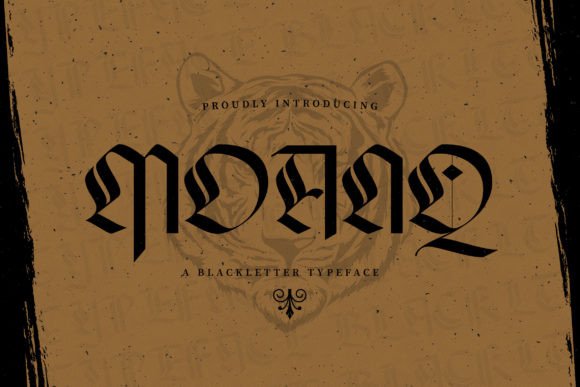
Moanq: Bold Blackletter for Impactful Design
Moanq is a striking blackletter typeface that brings a sense of history and drama to any design. Its strong, intricate letterforms make it ideal for creating visuals that stand out in the digital space. Whether you're designing social media graphics, campaign banners, or brand assets, Moanq adds a unique visual identity that captures attention.
As a marketing professional, you know how important it is to create content that resonates with your audience. Moanq helps you achieve that by offering a bold, distinctive look that conveys confidence and style. Its dark, textured strokes evoke a sense of mystery and sophistication, making it perfect for campaigns that want to make a statement.
Blackletter fonts like Moanq are often associated with vintage, gothic, or fantasy themes. However, they can also be used in modern contexts when paired correctly. Moanq’s versatility allows it to work across different industries, from fashion and entertainment to tech and lifestyle brands. Its strong presence makes it an excellent choice for headlines, logos, and decorative elements in your creative projects.
Moanq in Social Media Graphics and Campaigns
On platforms like Instagram, Pinterest, and YouTube, first impressions matter. Moanq can help you create eye-catching thumbnails and post covers that stop the scroll. Its bold structure ensures legibility even in small sizes, making it ideal for social media previews and fast-moving feeds.
For example, using Moanq in a sale announcement graphic gives your message a dramatic edge. A simple "50% Off" banner with Moanq as the headline stands out against a clean background, drawing attention without overwhelming the viewer. Similarly, a product teaser with Moanq as the main text creates a sense of anticipation and exclusivity.
In email marketing, Moanq can elevate your headers and subject lines. A well-designed email with Moanq as the primary font can increase open rates by making your message feel more engaging and visually appealing. It works especially well for seasonal promotions, limited-time offers, and exclusive content announcements.
Enhancing Visual Hierarchy and Brand Recognition
Visual hierarchy is crucial in digital design. Moanq helps establish clear focal points, guiding the viewer’s eye through your content. Its weight and texture make it ideal for headlines, callouts, and key messages, ensuring your most important information is seen first.
When used consistently across your brand materials, Moanq reinforces brand recognition. A logo, website header, or social media profile picture featuring Moanq becomes instantly recognizable, helping your brand stand out in a crowded digital landscape.
For personal branding, Moanq can add a signature touch to your online presence. Whether it's a YouTube channel art, LinkedIn profile, or portfolio site, using Moanq in key areas creates a cohesive and professional look that reflects your style and expertise.
Best Uses for Moanq in Digital Content
Moanq excels in short-form text such as headlines, titles, and callouts. Its strong visual impact makes it ideal for promotional banners, event posters, and digital ads. When used in these contexts, it adds a level of authority and flair that other fonts may not provide.
For longer text, Moanq may not be the best choice due to its dense structure. However, it can still serve as a decorative accent or highlight in a design. Pairing it with a clean sans serif font like Helvetica or Arial can balance the composition while maintaining visual interest.
In editorial design, Moanq can bring a unique aesthetic to magazine layouts, book covers, or blog headers. Its historical roots give it a timeless quality that complements both traditional and contemporary styles. For packaging design, Moanq can add a premium feel to product labels and branding elements.
Practical Font Pairing and Readability Tips
To maximize readability, especially on mobile screens and small previews, use Moanq sparingly. Limit its use to headlines and key phrases rather than long paragraphs. This ensures your message remains clear and easy to read across different devices.
When pairing Moanq with other fonts, consider the contrast between styles. A clean, modern sans serif can provide a nice counterbalance to Moanq’s intricate details. For a more editorial feel, combine it with a classic serif font like Times New Roman or Georgia. This creates a layered look that feels both sophisticated and readable.
Moanq is more than just a font—it's a powerful tool for visual storytelling. Whether you're crafting a campaign, designing a logo, or creating social media content, Moanq adds a layer of depth and character that elevates your work. Its boldness and elegance make it a valuable addition to any designer’s toolkit, helping you create content that truly stands out.